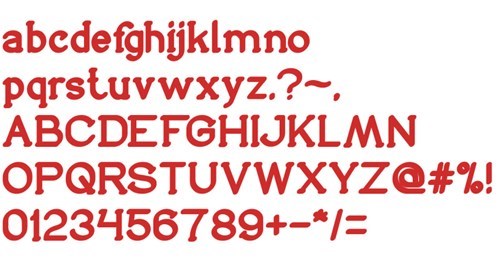
Easy Embroidery is happy to present Feliz Navidad Embrilliance Font - Decorative Holiday Lettering - BX font machine embroidery font which has Decorative machine embroidery font showcases 'Feliz Navidad' with playful letter shapes in green and maroon, ideal for festive projects on holiday decorations. Available in BX font and Embrilliance formats. included. If you would like to view more embroidery fonts and alphabets please search our embroidery fonts page.
Feliz Navidad Embrilliance Font - Decorative Holiday Lettering - BX font